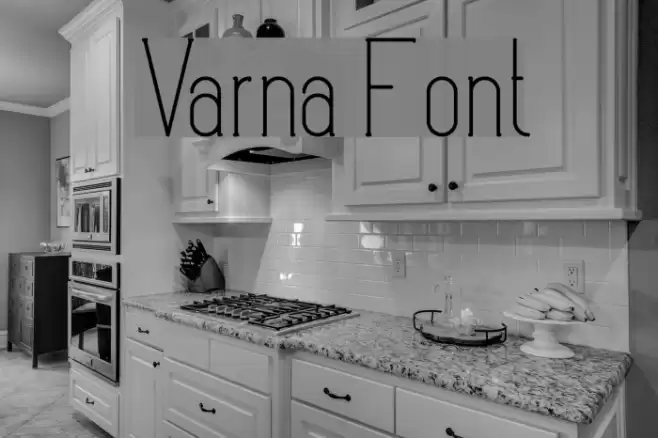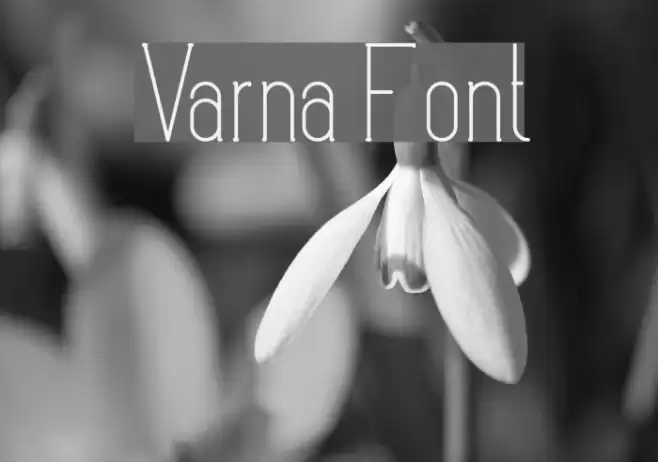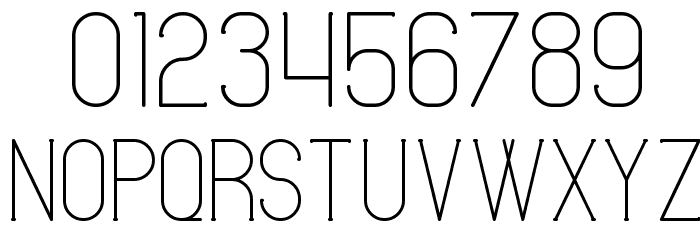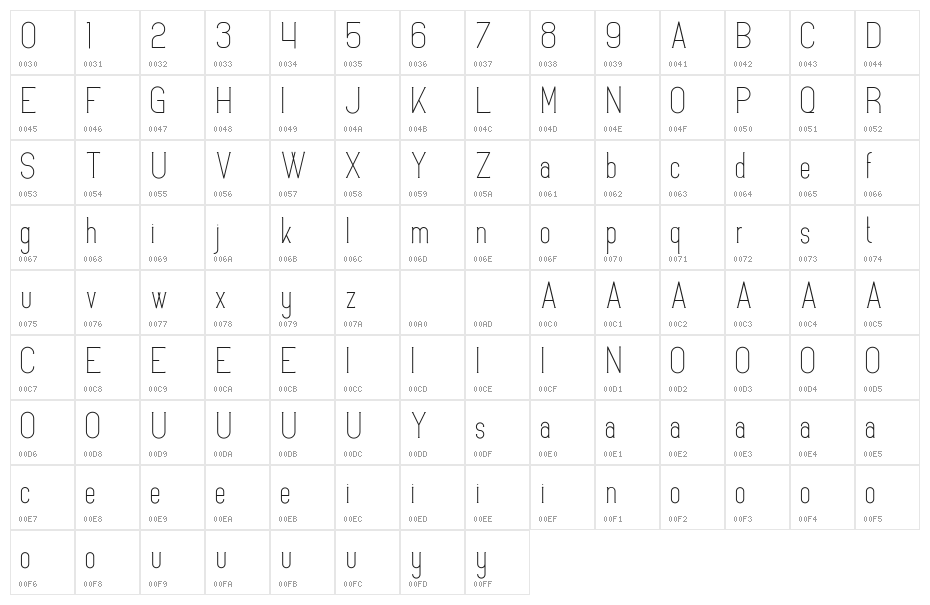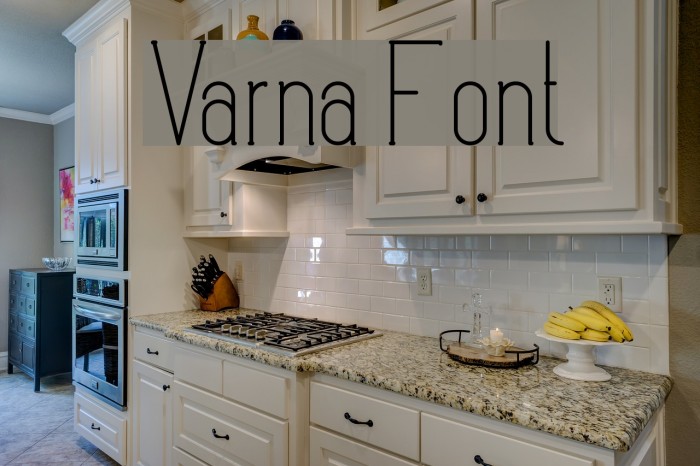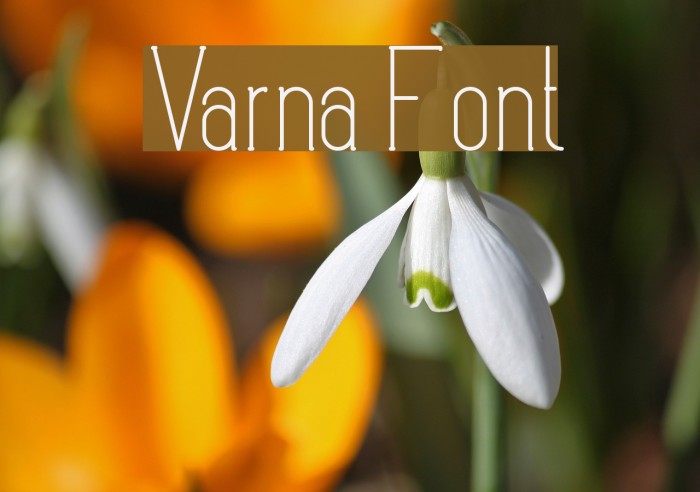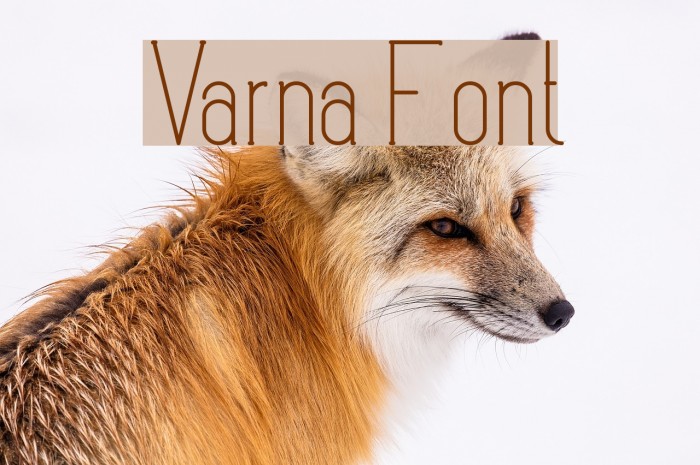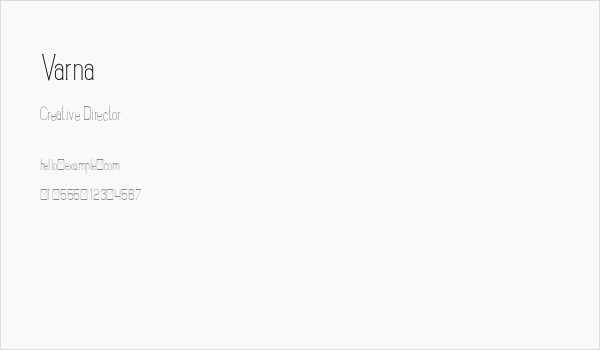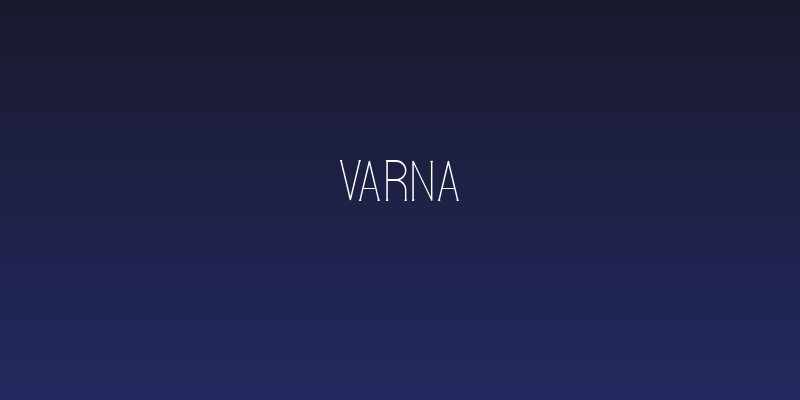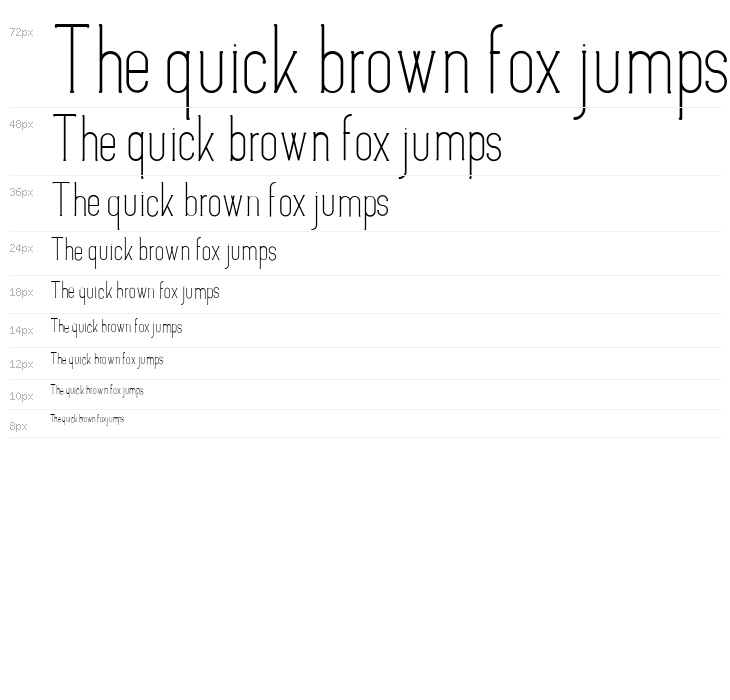
Varna Font
Varna Description
This font features a clean, modern design with a geometric structure. The uppercase letters are tall and narrow, giving a sleek and sophisticated appearance. The lowercase letters maintain a consistent height, with rounded edges that add a touch of softness to the overall look. The numerals are uniform in height, matching the uppercase letters, and are designed with clarity and readability in mind. The special characters are seamlessly integrated, maintaining the font's cohesive style. The thin strokes and minimal contrast between thick and thin lines contribute to its elegant and contemporary feel.
A modern, geometric font with tall, narrow uppercase letters and rounded lowercase characters from Uncategorized fonts.
- Proposed Projects: Ideal for branding, editorial design, and digital interfaces where a modern and clean aesthetic is desired.
- Use Case: Headlines, Logos, Digital Interfaces